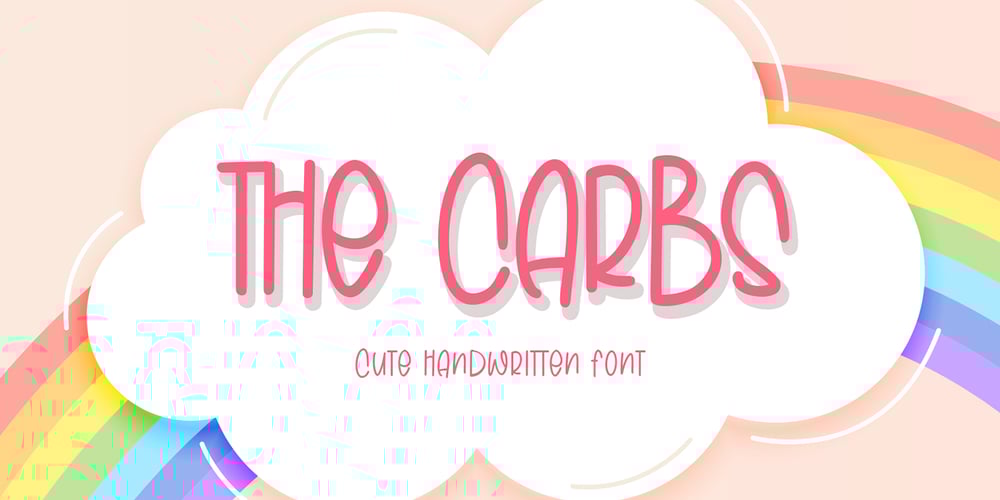
The Carbs
The Carbs font
The Carbs Font Family was designed by Gilang Maulana and published by Maulana Creative. The Carbs contains 1 styles and family package options. Give your designs an authentic handcrafted feel. �The Carbs� is perfectly suited to signature, stationery, logo, typography quotes, magazine or book cover, website header, clothing, branding, packaging design and more.Thanks for use this font ~ Maulana